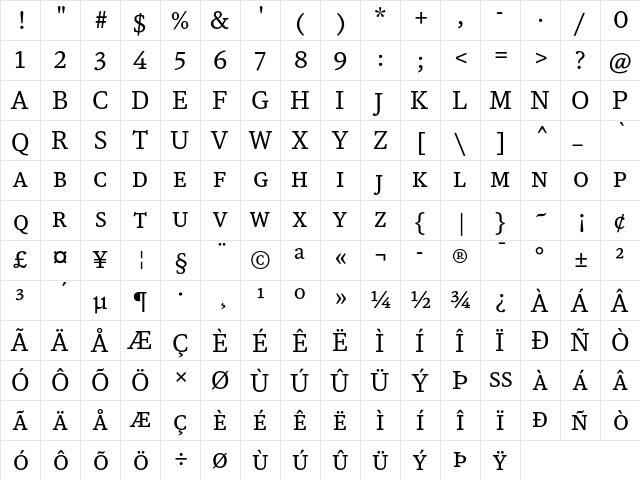
DB News SC Regular
Design Context for DB News SC Typeface
DB News SC offers clean, dependable letterforms without strong stylistic allegiance, making it a practical choice for designers who need flexibility.